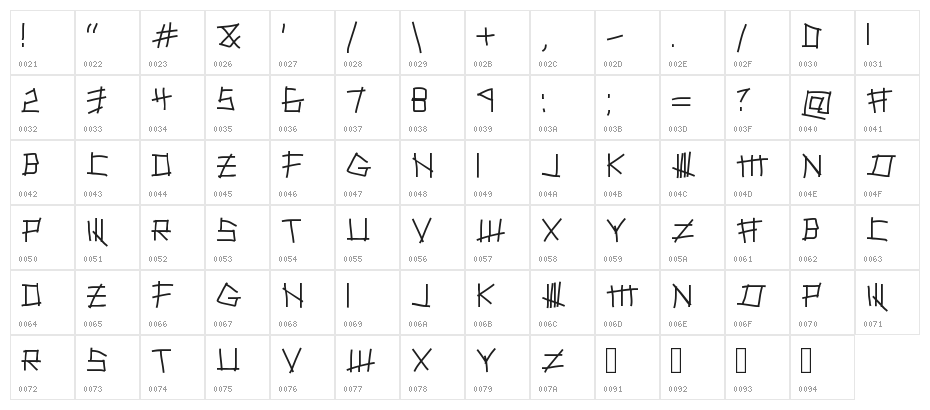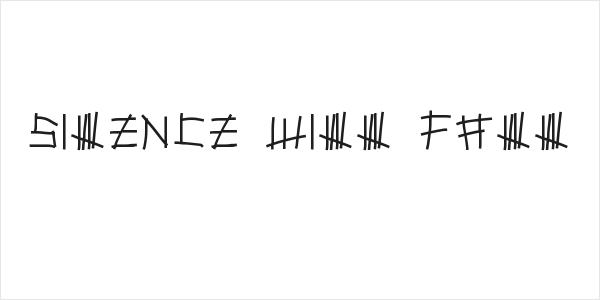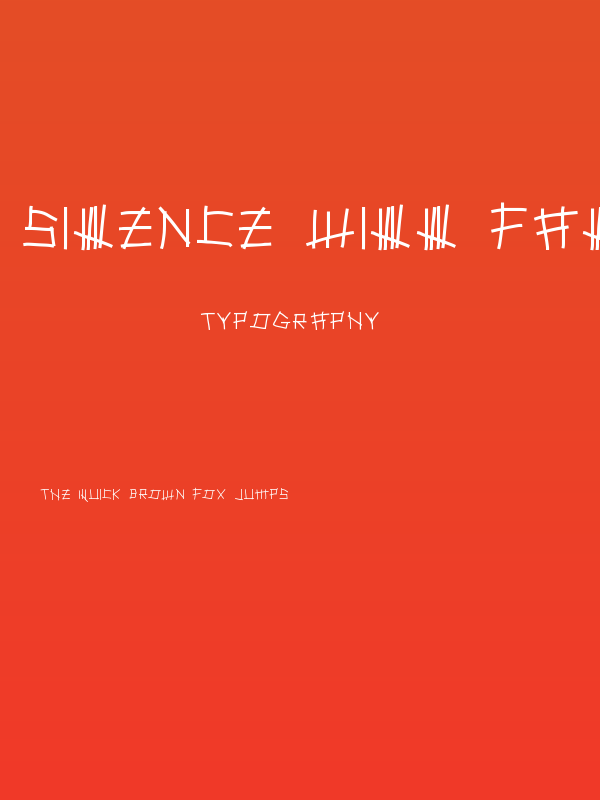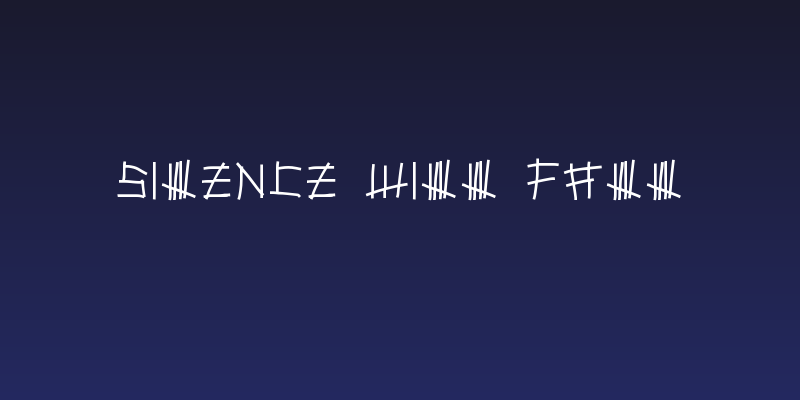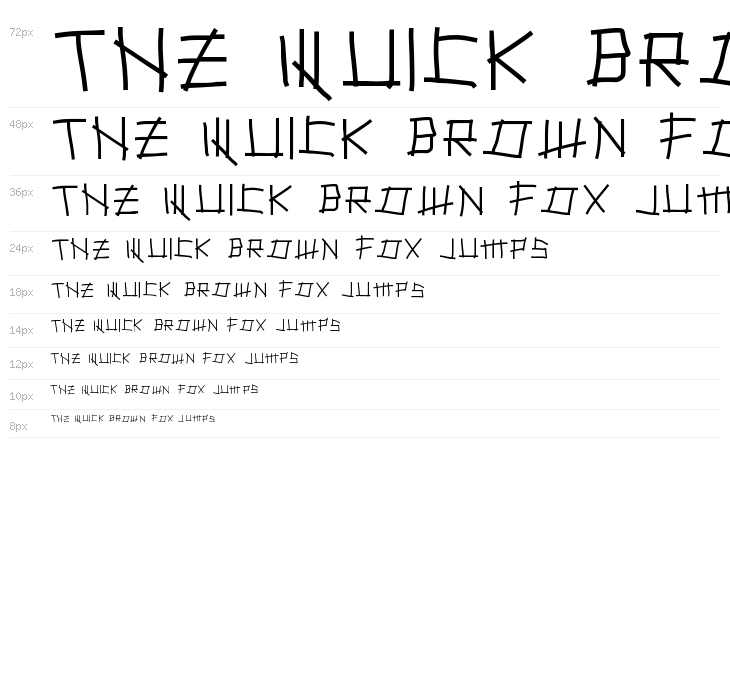
SILENCE WILL FALL Font
SILENCE WILL FALL Description
This font features a unique and striking design, characterized by its angular and geometric letterforms. The characters are composed of straight lines and sharp angles, giving it a futuristic and somewhat cryptic appearance. The uppercase and lowercase letters share a consistent style, maintaining the angular theme throughout. Numbers and special characters are also designed in the same manner, ensuring uniformity across the font. The overall aesthetic is bold and eye-catching, making it suitable for projects that require a distinctive and modern look.